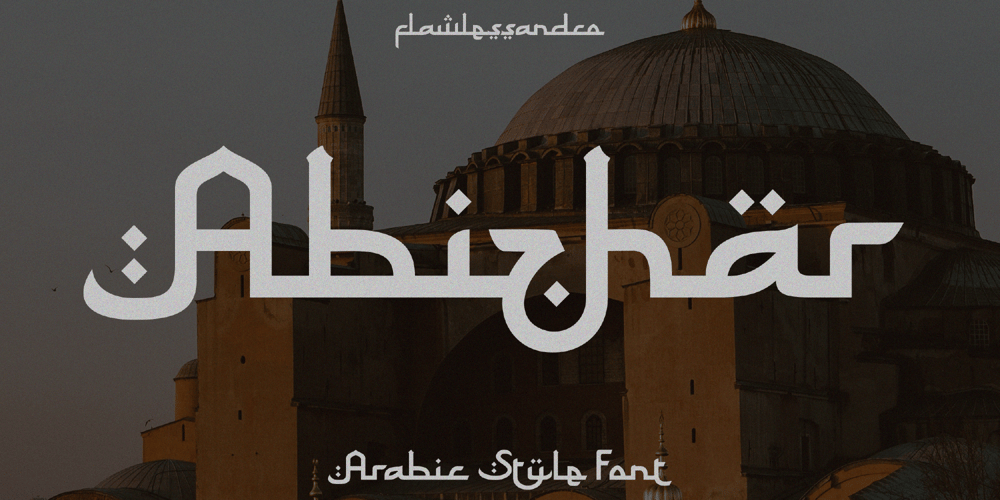
Abizhar
Abizhar font
Abizhar Font Family was designed by Achmad Yani and published by Flawlessandco. Abizhar contains 1 styles and family package options. Abizhar is a beautifully crafted Ramadan Arabic font that is perfect for your creative projects. Designed with a modern touch, this font features elegant calligraphic strokes and bold lines that make it stand out from the crowd. There’s some connected letters and some alternates that suitable for any graphic designs such as branding materials, t-shirt, print, business cards, logo, poster, t-shirt, photography, quotes .etcThis font support for some multilingual. Also contains uppercase A-Z and lowercase a-z, alternate character, numbers 0-9, and some punctuation.If you need help, just write me! Thanks so much for checking out my shop!